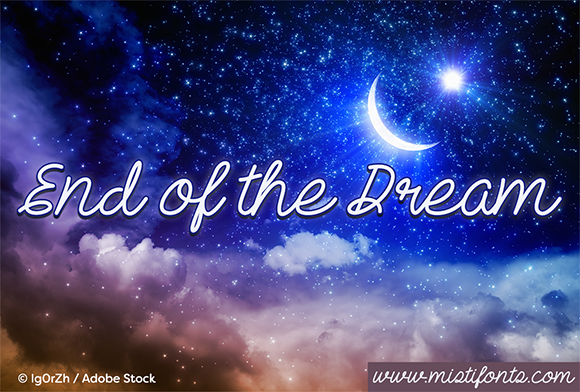
Step into a world of elegance and whimsy with End of the Dream Font, a stunning script font crafted by the talented artist, Misti. This exquisite font is a masterpiece that will transform your creative visions into captivating realities.
Immerse yourself in the beauty of End of the Dream, a font that dances across your screen like a delicate ballet. Its graceful curves and flowing lines evoke a sense of enchantment and wonder, making it the perfect choice for adding a touch of magic to your designs.
With End of the Dream, you hold the key to unlocking your imagination. Its versatility shines in a myriad of projects, from heartfelt wedding invitations to whimsical greeting cards, from enchanting posters to spellbinding social media posts. Let your creativity soar as you explore the endless possibilities of this captivating font.
End of the Dream is not just a font; it's an experience. It's an invitation to let your creativity run wild, to embrace the extraordinary, and to make your dreams a reality. Its enchanting aura will captivate your audience, leaving them spellbound by the beauty of your designs.
So, embark on this extraordinary adventure with End of the Dream Font. Unleash your creativity, let your imagination flourish, and create designs that leave an unforgettable impression.